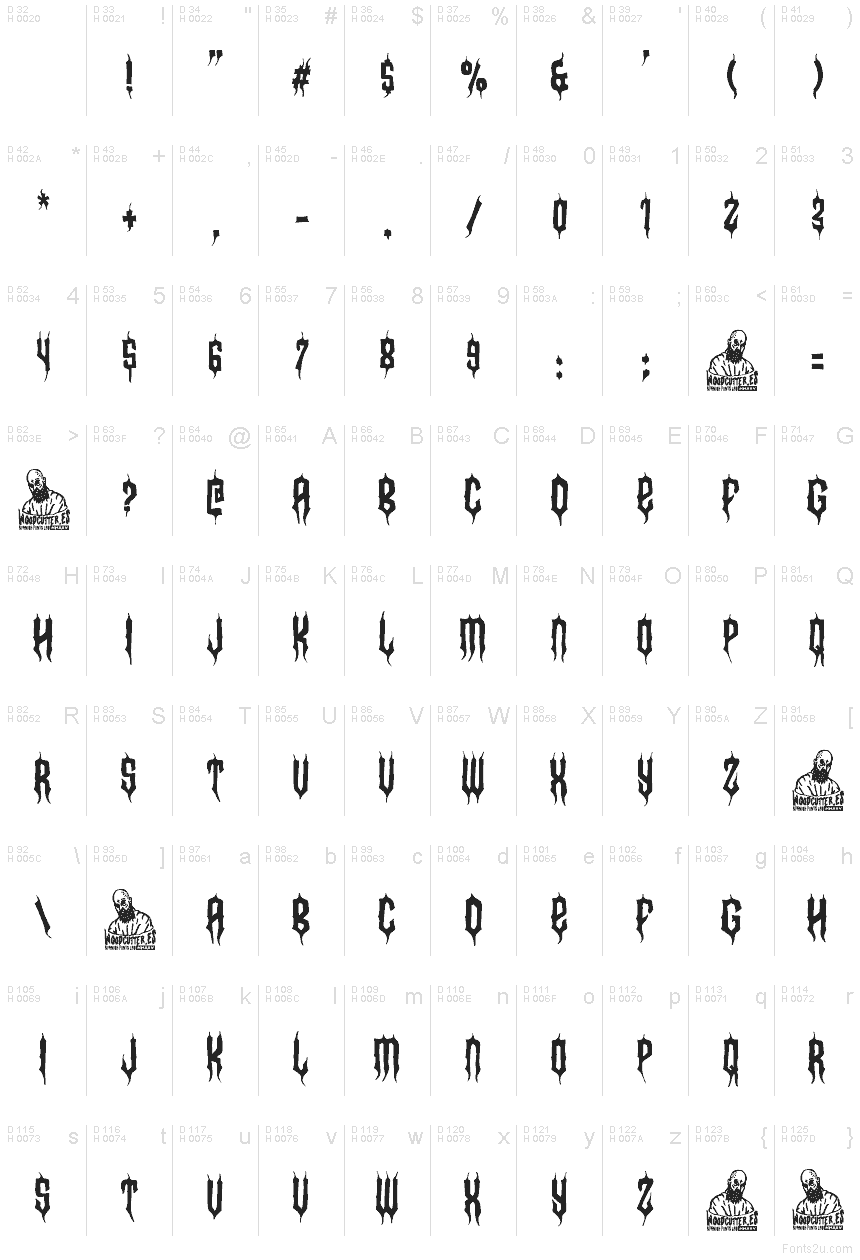
London Dark Party
London Dark Party font is a gothic, modern, and condensed typeface designed by Woodcutter. Its design instantly creates an intense mood for projects that require a dark aesthetic. Decorative elements and historical echoes make this free font even more dramatic.
Incorporate it into horror themes of movies, escape rooms, ghost festivals and parties, or Halloween props. This font can also be used for album covers, company/charity names in prints or web pages with dark themes, book titles, posters featuring cemeteries with full moon nights, etc.